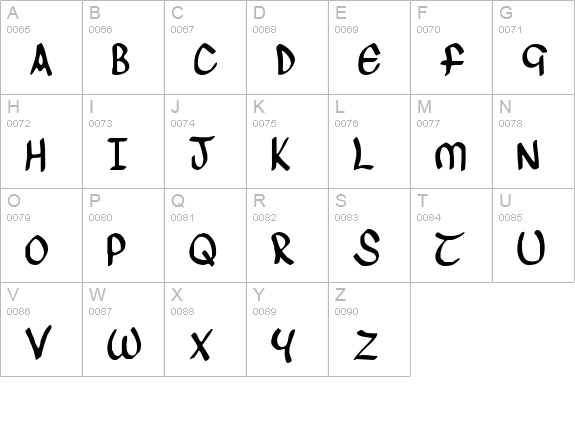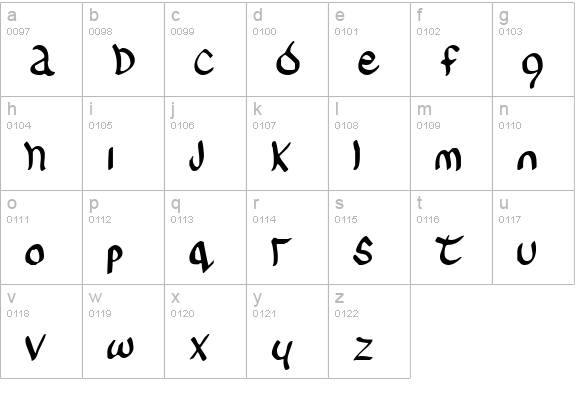
Sinead Font Details
Sinead Font is a beautifully crafted typeface that exudes elegance and sophistication. With its delicate curves and graceful strokes, this font is perfect for adding a touch of refinement to any design project. Whether you're creating wedding invitations, branding materials, or a stunning logo, Sinead Font is sure to make a lasting impression. What's more, this incredible font is available for free! You can easily download Sinead Font at FontsMarket.com, a trusted source for high-quality fonts. By offering Sinead Font for free, we aim to make it accessible to designers and creatives of all levels, ensuring that everyone has the opportunity to elevate their designs with this stunning typeface. Sinead Font is not just visually appealing, but also versatile. It offers a wide range of weights and styles, allowing you to experiment and find the perfect fit for your project. Whether you prefer a bold and impactful look or a more subtle and refined aesthetic, Sinead Font has got you covered. The attention to detail in Sinead Font is truly remarkable. Every letter is meticulously designed, resulting in a seamless and harmonious overall look. The beautiful ligatures and alternate characters add an extra layer of charm to this already captivating font. In addition to its aesthetic appeal, Sinead Font also boasts excellent legibility. Each letter is carefully optimized for readability, ensuring that your message is conveyed clearly and effectively. Whether you're using Sinead Font for large headlines or small body text, it will always deliver a visually pleasing and easy-to-read result. Download Sinead Font for free today at FontsMarket.com, and unlock the potential to create stunning designs that stand out from the crowd. With its timeless elegance and wide range of styles, Sinead Font is the perfect choice for any design project. Don't miss out on this incredible opportunity to enhance your creativity and make a lasting impression with Sinead Font.